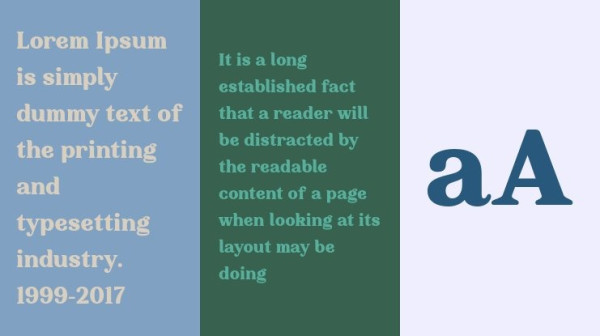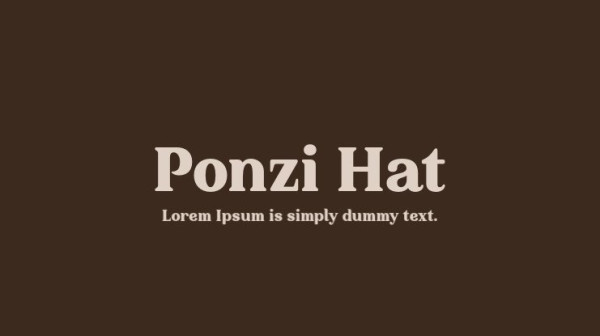
Ponzi Hat Font
Ponzi Hat Font, a retro vintage serif display font from Drizy! It’s suitable for vintage theme of your project. Wishing you the best, and have a nice day. Don’t forget to check out our other products.